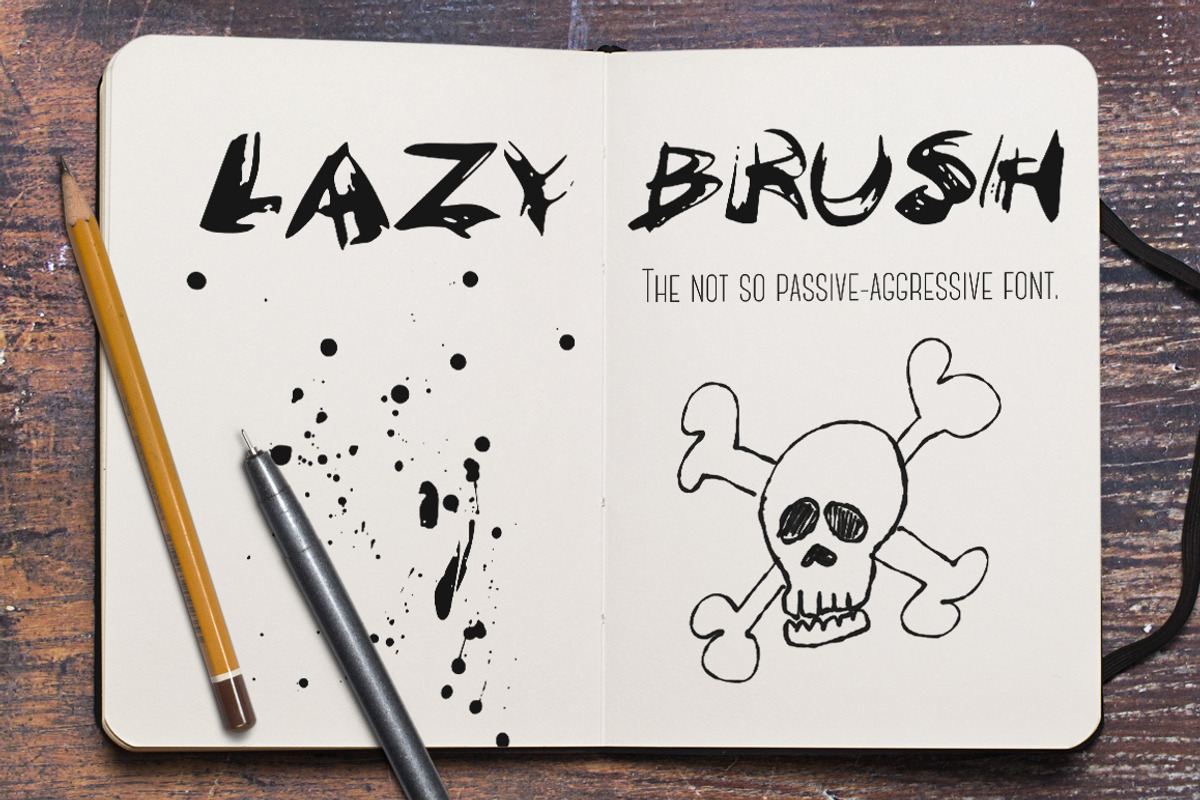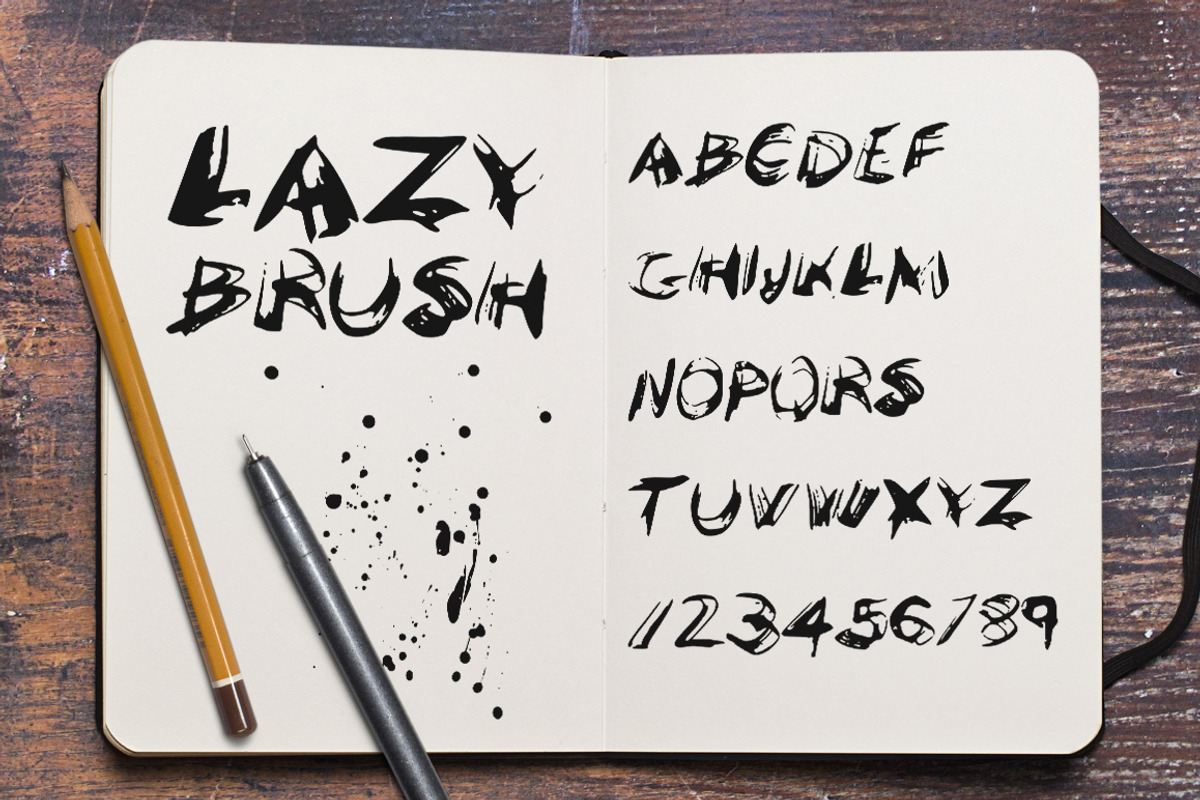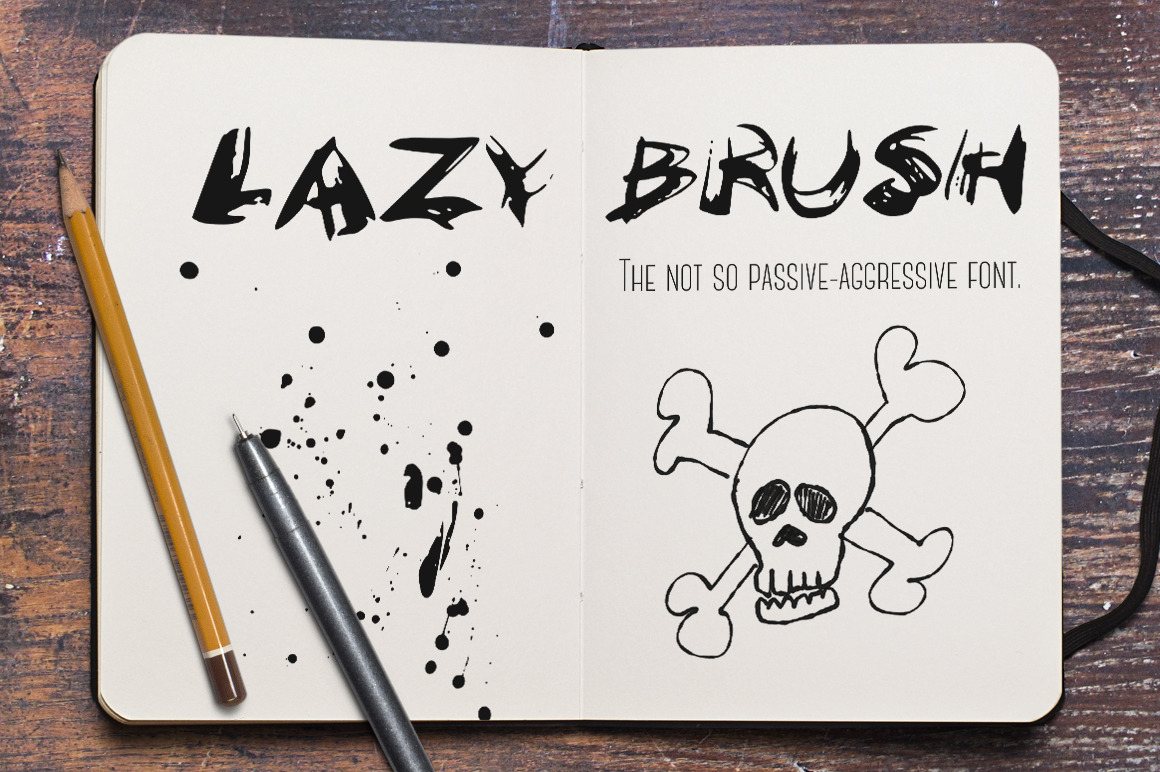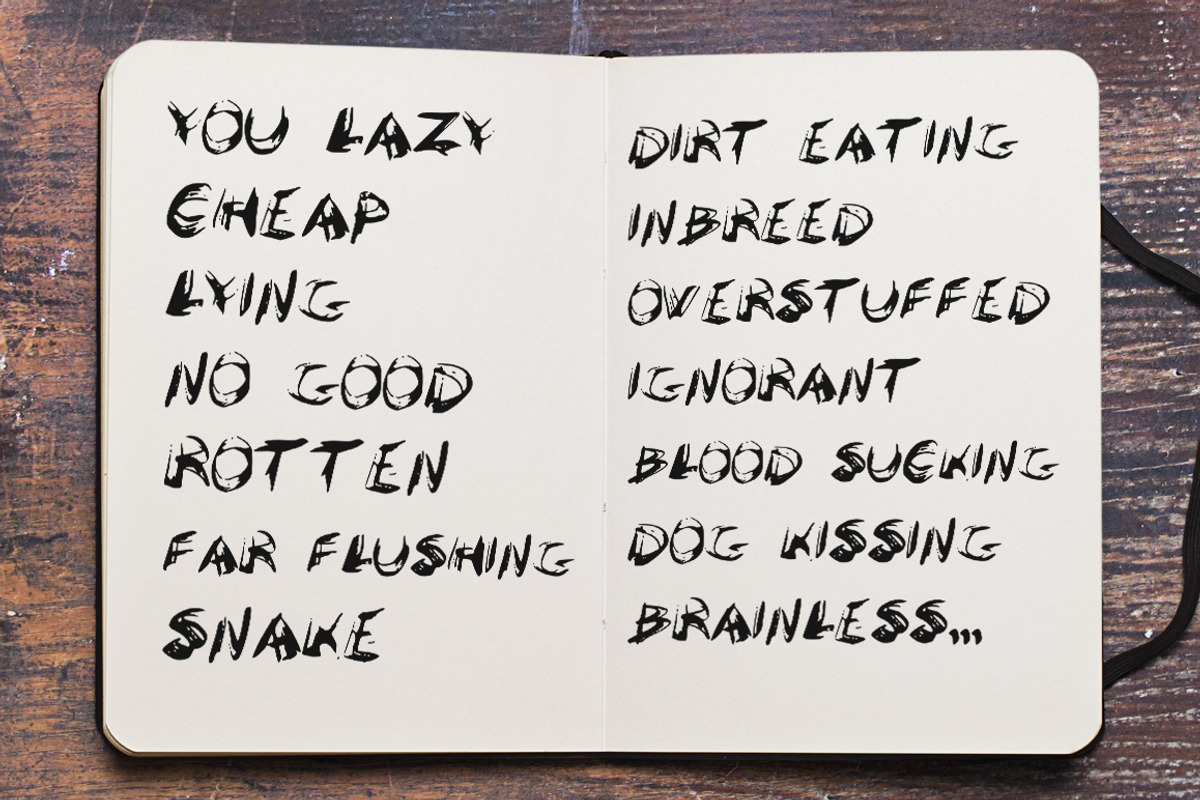
LazyBrush font
LazyBrush font, for all those times you want to scream insults in all caps to those idiots all around you, but don't want to take the time to do so in perfect penmanship.
Features include:
All Caps Display font (the better to scream in)
Stress relief after usage (If screaming continues, please see a doctor)